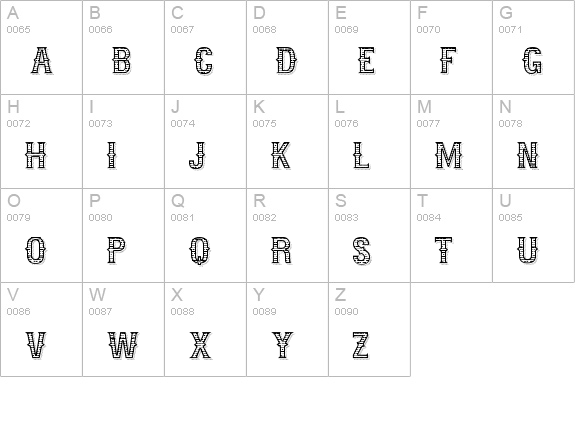
OldVintage_1 Font Details
Introducing OldVintage_1 font, a timeless and nostalgic typeface that exudes charm and character reminiscent of eras gone by. This vintage-inspired font carries an air of sophistication and heritage, making it perfect for projects seeking a touch of classic elegance. The ornate details and elegant curves of OldVintage_1 font create a sense of nostalgia and warmth, evoking memories of a bygone era. Best of all, OldVintage_1 font is available for free download at FontsMarket.com, allowing you to add a touch of vintage flair to your designs without any cost. Whether you're working on invitations, branding, posters, or any other creative project, OldVintage_1 font is sure to elevate your work with its unique charm and classic appeal. Embrace the timeless beauty of OldVintage_1 font and let its vintage allure bring your designs to life.